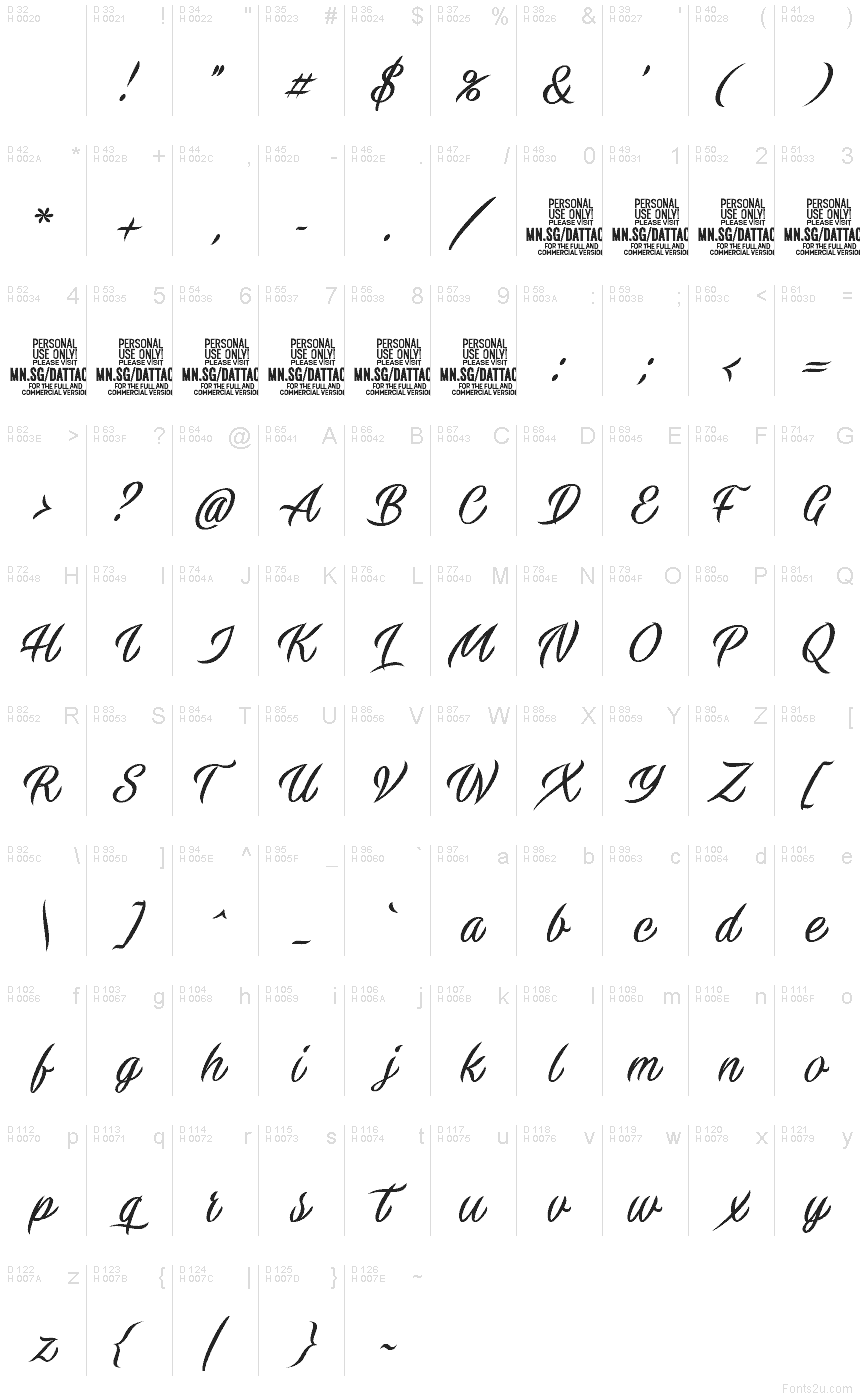
Dattacle PERSONAL USE Regular
Dattacle font by Mans Greback is a free brush script typeface. It channels classic tattoo script through a modern brush, with inky sweeps that snap into crisp, blade-like endings. The rhythm is quick and confident—bold curves glide, then flick—giving you a line that feels handcrafted without getting messy.
Using Dattacle, headlines and marks leap off the page: boutique logos, tattoo studio badges, apparel graphics, barbershop signage, event posters, and social media headers all benefit from its swagger. Set it big with tight spacing for maximum bite, and pair this free font with a clean geometric sans for body copy to keep the spotlight on the brushwork.